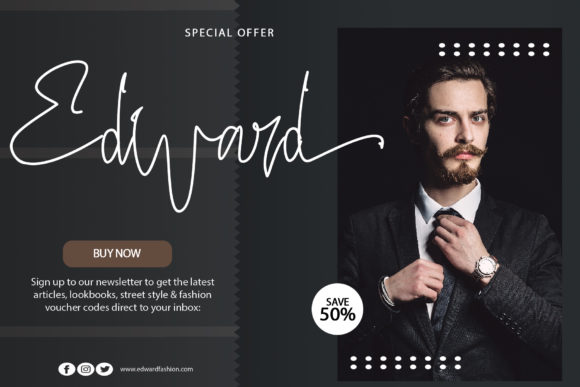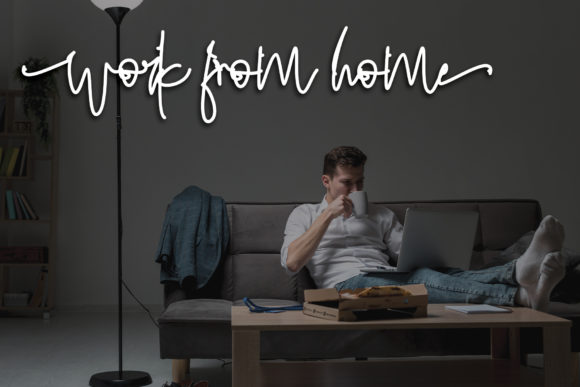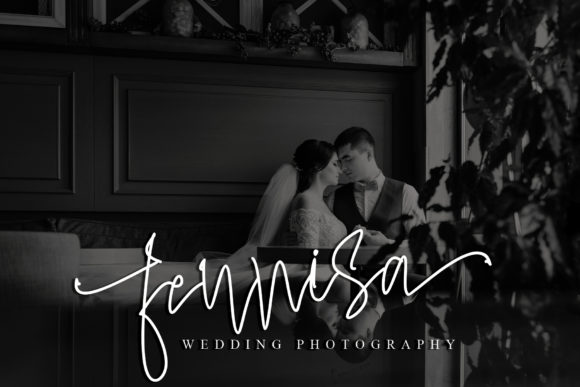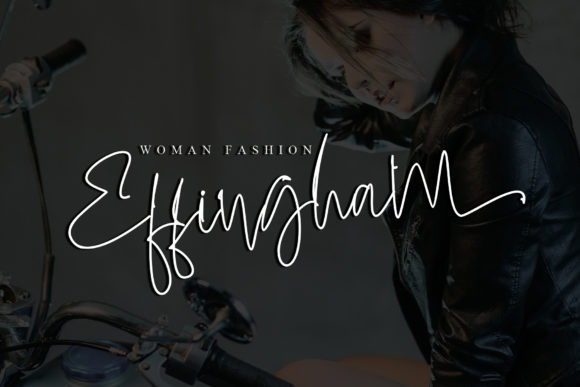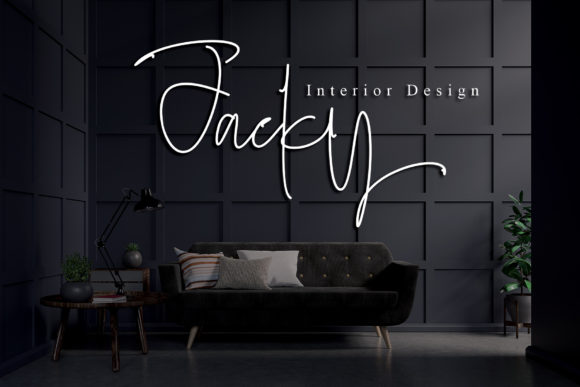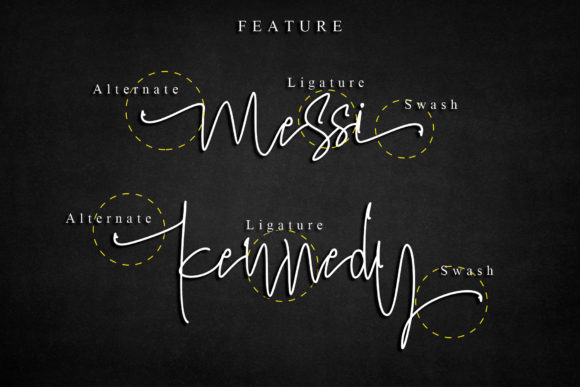
Fergitta Font: Elevate Your Creativity with Elegance
In the world of typography, few fonts manage to capture the essence of elegance and whimsy as effortlessly as Fergitta. This magical handwritten font is meticulously crafted to bring a touch of sophistication and charm to any creative project. Whether you’re a designer looking to elevate your Instagram feed or a crafter seeking the perfect calligraphy script for your DIY endeavors, Fergitta is the ideal choice. In this article, we’ll delve into the unique features of Fergitta and explore how it can transform your creative ideas into true pieces of art.
The Unique Charm of Fergitta
Fergitta stands out in the realm of handwritten fonts due to its distinctive blend of elegance and playfulness. Each letter is carefully designed to exude a sense of luxury and refinement, making it perfect for projects that demand a high level of sophistication. The font’s flowing lines and delicate curves give it a feminine touch, while its overall structure maintains a level of professionalism that appeals to a wide range of creative fields.
One of the key advantages of Fergitta is its versatility. This font is not limited to a specific type of project; instead, it can be seamlessly integrated into various creative endeavors. Here are a few ways Fergitta can enhance your projects:
- Instagram Graphics: In the visually-driven world of Instagram, standing out is crucial. Fergitta can help you create eye-catching posts, quotes, and stories that resonate with your audience. Its elegant appearance ensures that your content looks polished and professional.
- DIY Projects: For crafters and DIY enthusiasts, Fergitta offers endless possibilities. Use it to add a personal touch to handmade cards, scrapbooks, and other craft projects. The font’s calligraphy style lends itself beautifully to hand-lettering and decorative arts.
- Branding and Packaging: Businesses looking for a unique and memorable brand voice can benefit from Fergitta. Its distinctive style can help create a cohesive brand identity that sets you apart from competitors.
Why Fergitta Stands Out
In a sea of fonts, Fergitta manages to stand out due to its exceptional design quality and the emotions it evokes. Here are some reasons why Fergitta should be your go-to font:
- Elegant and Refined: Fergitta’s design is both elegant and refined, making it suitable for projects that require a sophisticated look.
- Magical and Whimsical: The font’s whimsical undertones add a touch of magic to any project, making it perfect for creative and artistic endeavors.
- User-Friendly: Fergitta is designed to be easy to read and use, ensuring that your message is conveyed clearly and effectively.
Tips for Using Fergitta Effectively
To maximize the impact of Fergitta, consider the following tips:
- Pair with Complementary Fonts: For maximum effect, pair Fergitta with fonts that complement its elegance. Sans-serif fonts can provide a nice contrast and enhance readability.
- Experiment with Colors: Fergitta looks stunning in a variety of colors. Experiment with different hues to find the perfect match for your project.
- Pay Attention to Spacing: To maintain the font’s elegance, ensure that there’s adequate spacing between letters and lines. This will prevent the text from looking cluttered and ensure optimal readability.
Fergitta is more than just a font; it’s a creative tool that can elevate your projects to new heights. Its unique blend of elegance and whimsy makes it perfect for designers, crafters, and anyone looking to add a touch of sophistication to their work. Whether you’re creating Instagram graphics, working on DIY projects, or developing a brand identity, Fergitta is the ideal choice. Embrace the magic of Fergitta and turn your creative ideas into true pieces of art.